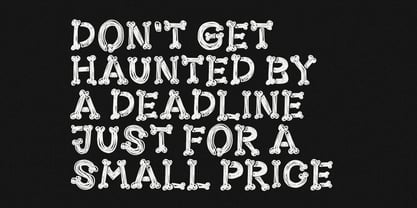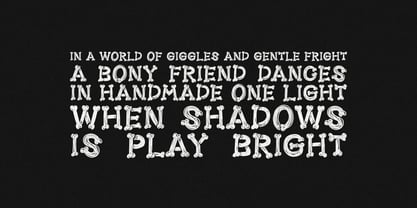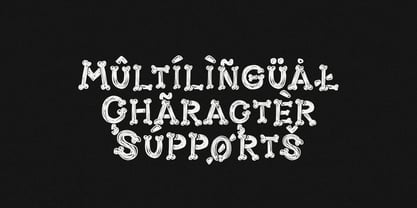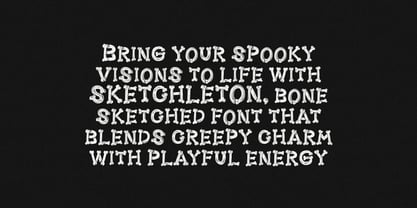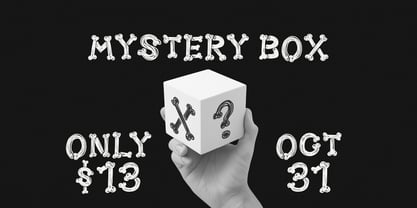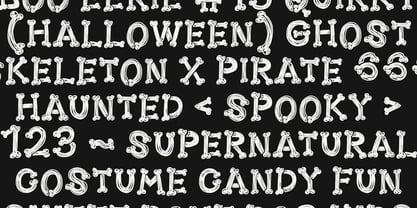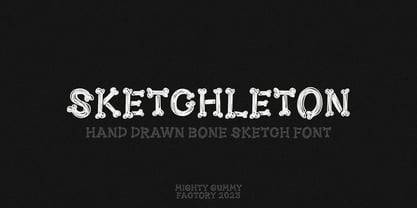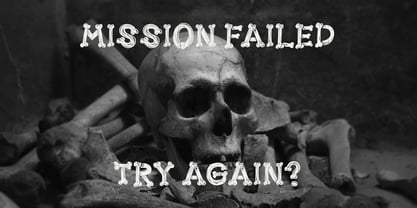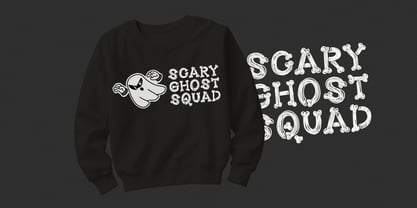
MGF Sketchleton
by Mighty Gummy Factory
The MGF Sketchleton Font Family was designed by Gumilang Anggara Ruslan and published by Mighty Gummy Factory. MGF Sketchleton contains 1 styles. More about this family
SKETCHLETON is a playful bone sketch display font designed for designers, creators, and brands who want to stand out with a spooky yet fun aesthetic. With its hand-drawn bone-inspired letters, this font is perfect for Halloween designs, children’s books, quirky packaging, social media content, and event branding. Whether you’re working on logos, posters, or merchandise, SKETCHLETON delivers a bold, creepy, yet lovable vibe that instantly grabs attention.
Style & Vibe:
SKETCHLETON is a hand-drawn bone sketch display font that mixes a spooky yet playful energy. It feels quirky, fun, and slightly eerie perfect for Halloween themes, kids’ spooky stories, and eye-catching designs that need personality.
Intended Market Vibe:
Great for Halloween posters, Instagram content, spooky party invitations, children’s books, merchandise, and edgy branding.
Letterform Structure:
Handcrafted, sketch-like strokes with bone-inspired shapes. Each character feels organic and slightly irregular, giving it a raw, natural charm.
Best Use Cases:
• Branding & Logos (Halloween shops, quirky brands, pet & spooky products)
• Social Media Graphics (Instagram posts, TikTok covers, seasonal campaigns)
• Packaging (snacks, candy, spooky-themed goods)
• Children’s Books & Storytelling
• Event Posters & Merch
Bring your spooky visions to life with SKETCHLETON, the bone-sketch font that blends creepy charm with playful energy—crafted for designers who want their projects to instantly grab attention during Halloween and beyond.
Why Designers Love It:
• Unique Bone Sketch Look → Hand-drawn effect that feels spooky yet approachable.
• Versatile Use → Works for kids’ projects, Halloween branding, edgy packaging, and social campaigns.
• Instant Atmosphere → Adds creepy, playful personality without extra design effort.
• Easy to Pair → Combine with bold sans-serif fonts for maximum contrast.
Perfect For:
• Halloween branding 🎃
• Spooky event invitations 🦴
• Merchandise & packaging 👕🍬
• Social media graphics 📱
• Children’s book titles 📖
Designers: Gumilang Anggara Ruslan
Foundry: Mighty Gummy Factory